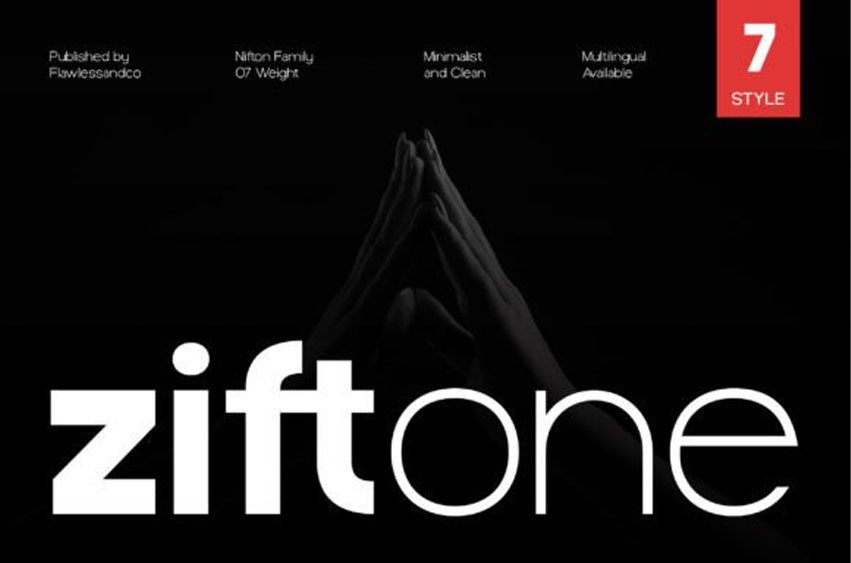
Ziftone Font Step into the world of elite, high-contrast design with the Ziftone font, a sophisticated sans-serif family that blends geometric precision with artistic flair.
The Ziftone typeface features unique, stylized “t” and “f” characters that act as signature design elements, making it instantly recognizable. It is a premier choice for high-tech branding, architectural firm identities, and luxury fashion lookbooks. By utilizing the Ziftone font, you create a sleek, futuristic atmosphere that feels both expensive and cutting-edge.
This Ziftone typeface comes in multiple weights, allowing you to pair its heavy, bold styles with its ultra-thin versions for a dynamic and professional typographic hierarchy. It is the perfect tool for any designer aiming for a “Silicon Valley” chic or a minimalist, high-end European aesthetic that radiates innovation.